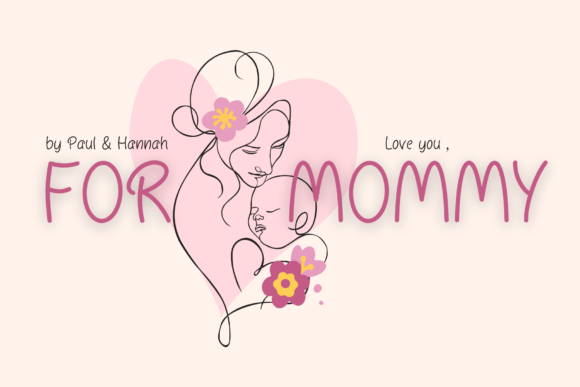
Introducing For Mommy Font: The Perfect Casual Handwritten Font for Your Designs
Are you looking for a font that can add a personal touch to your designs? Look no further than For Mommy Font, a casual handwritten font that captures a relaxed and friendly vibe with its natural, flowing strokes. In this article, we’ll explore the features and benefits of For Mommy Font, and how it can elevate your designs to the next level.
What is For Mommy Font?
For Mommy Font is a casual handwritten font designed to bring a sense of warmth and authenticity to your designs. Its natural, flowing strokes give it a relaxed and friendly vibe, making it perfect for personal projects, social media, and invitations. The font’s easygoing style adds a charming touch to any design, making it ideal for those who want to create a sense of connection with their audience.
Key Features of For Mommy Font
- Casual and Handwritten: For Mommy Font has a casual, handwritten feel that makes it perfect for designs that require a personal touch.
- Natural and Flowing Strokes: The font’s natural, flowing strokes give it a relaxed and friendly vibe that is sure to engage your audience.
- Easygoing Style: For Mommy Font’s easygoing style adds warmth and authenticity to any design, making it perfect for personal projects and social media.
- Versatile: The font is versatile and can be used for a variety of design projects, including invitations, posters, and social media graphics.
Benefits of Using For Mommy Font
There are many benefits to using For Mommy Font in your designs. Here are a few:
- Adds a Personal Touch: For Mommy Font adds a personal touch to your designs, making them more relatable and engaging.
- Creates a Sense of Connection: The font’s casual and handwritten feel creates a sense of connection with your audience, making them more likely to engage with your design.
- Easy to Read: For Mommy Font is easy to read, even at small sizes, making it perfect for designs that require a lot of text.
- Unique and Creative: The font’s unique and creative style sets it apart from more traditional fonts, making your designs stand out from the crowd.
How to Use For Mommy Font in Your Designs
For Mommy Font is easy to use in your designs, and can be incorporated in a variety of ways. Here are a few ideas:
- Invitations: Use For Mommy Font to create personalized invitations for special occasions, such as birthday parties, weddings, and baby showers.
- Social Media Graphics: Use the font to create social media graphics that are engaging and relatable.
- Posters: Use For Mommy Font to create posters that are eye-catching and easy to read.
- Personal Projects: Use the font to add a personal touch to your personal projects, such as photo albums and scrapbooks.
Tips for Getting the Most Out of For Mommy Font
Here are a few tips for getting the most out of For Mommy Font:
- Use it with Images: Use For Mommy Font with images to create a visually appealing design.
- Experiment with Colors: Experiment with different colors to find the perfect combination for your design.
- Keep it Simple: Keep your design simple and easy to read to get the most out of For Mommy Font.
- Be Creative: Don’t be afraid to get creative and try new things with For Mommy Font.
For Mommy Font is a casual handwritten font that captures a relaxed and friendly vibe with its natural, flowing strokes. Ideal for personal projects, social media, and invitations, it brings an effortless, charming touch to any design. With its easygoing style, For Mommy Font adds warmth and authenticity to any design, making it perfect for those who want to create a sense of connection with their audience.